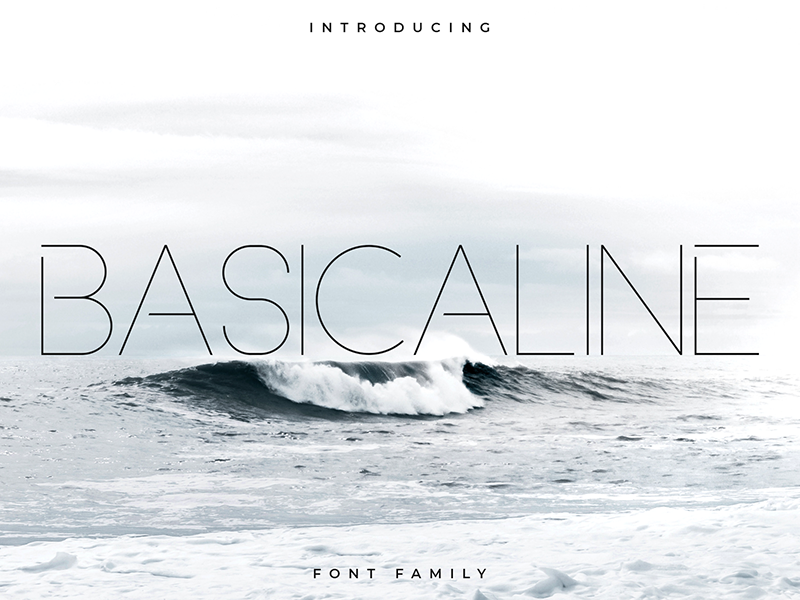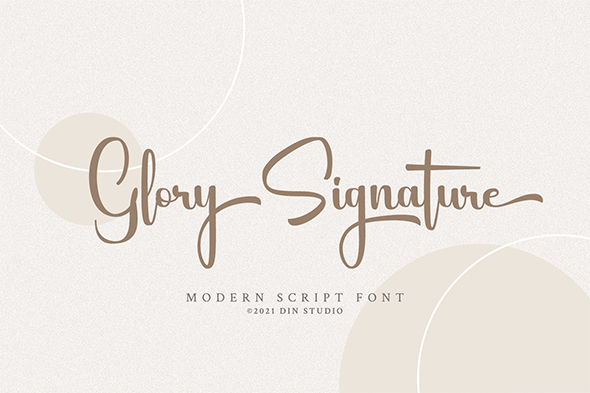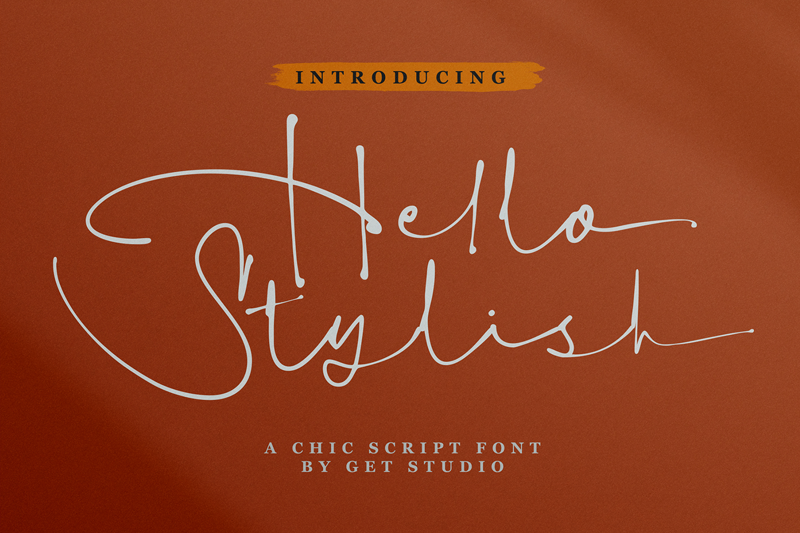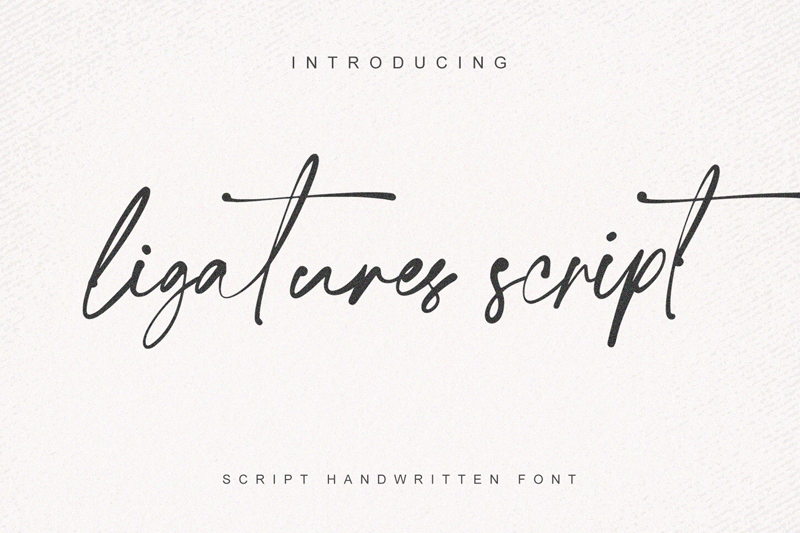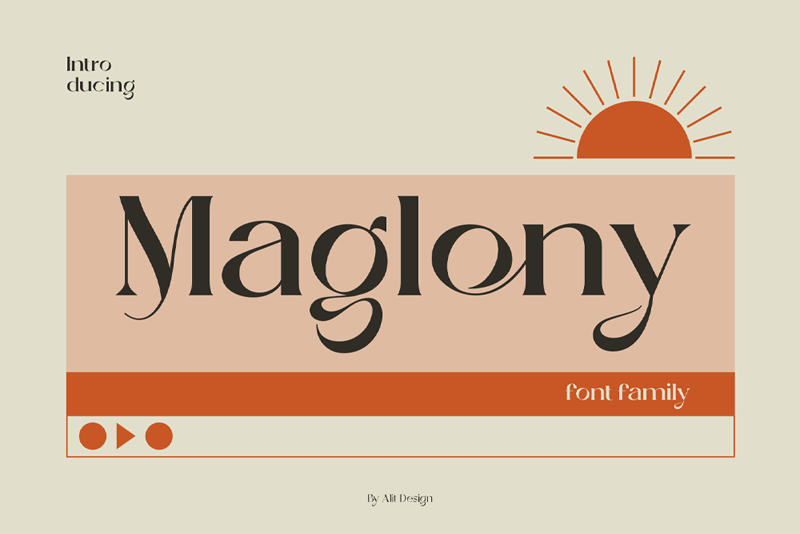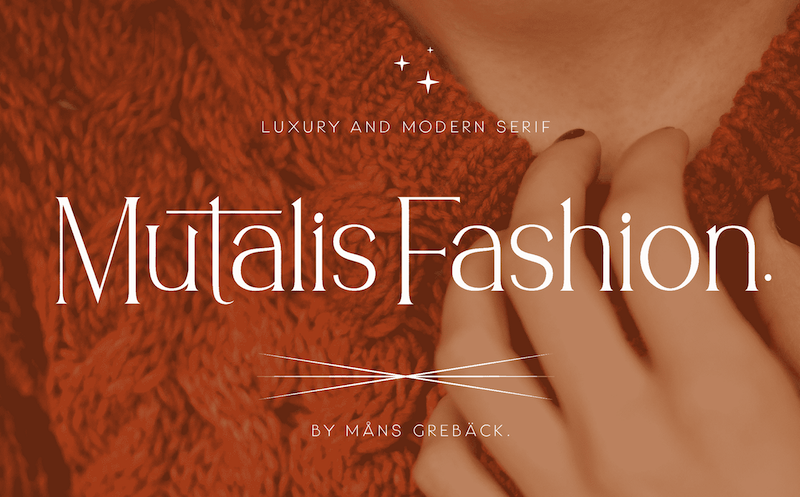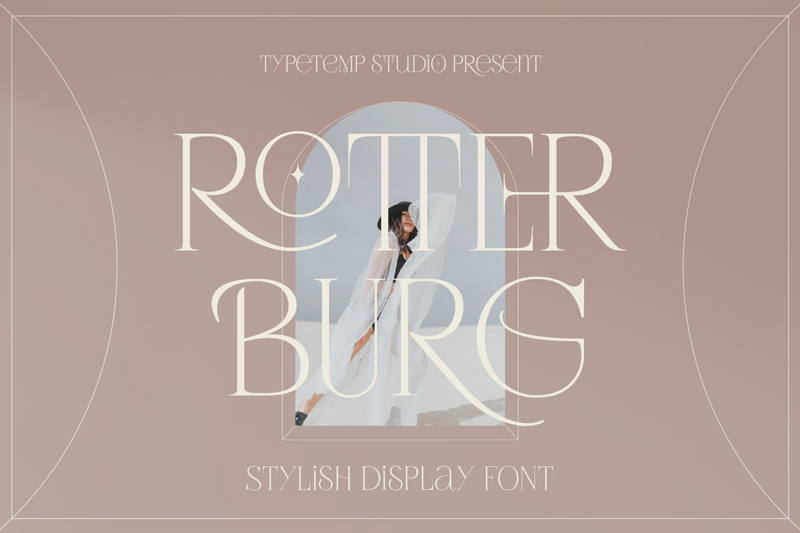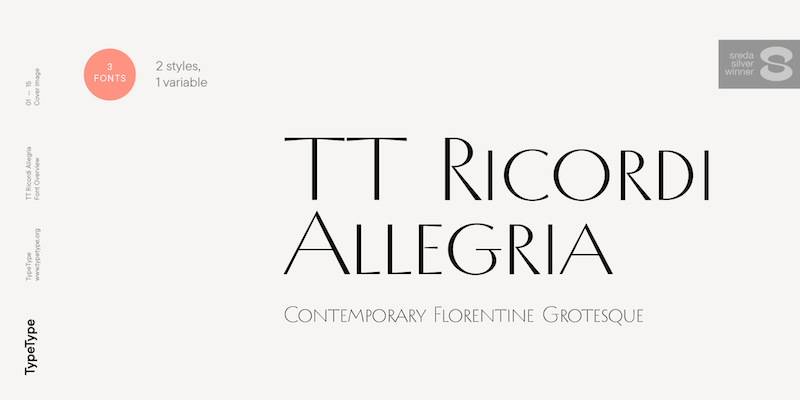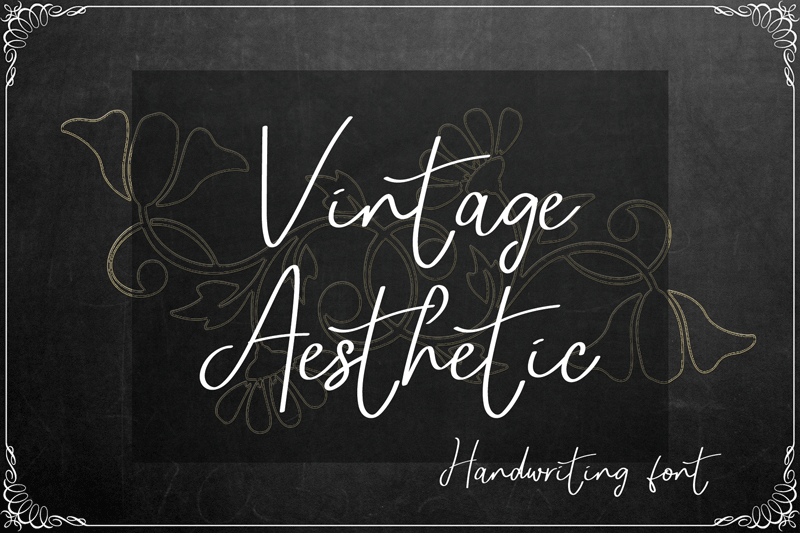
Nothing makes a designer happier than finding a font-style aesthetic to fill their design. You may realize that every element in a template design has a big impact on the result of the design itself. The same goes for finding the right font for your design requirements.
Let’s look at free font recommendations with many styles with various nuances. You may find the required font here!
The first font style aesthetic recommendation came from Basicaline, which is a serif font type with minimal styling. This makes Basicaline looks neat and also gives a formal image. Every constant thin line in this font gives a professional but stylish impression.
If you are a fan of basic script fonts with thin lines, Rotterburg can be your next beautiful font collection. In contrast to basic fonts in general, which don’t have many stylistic looks, Rotterburg is very fashionable. Each alphabet has a unique style gives it an elite and aesthetic impression.
You might think that most typeface fonts don’t have significant stylistic differences. But seeing this font from TT Ricordi Allegria you will think differently.
It is a contemporary font style aesthetic. At first glance, it looks like a basic font, but many small details make it unique and classy. In addition, you can get 2 different styles of this font which are beneficial for your design.
Typical handwriting fonts like Vintage Aesthetic are perfect for applying to designs requiring a font style name aesthetic.
Apart from the characteristics of handwriting fonts which have beautiful curves and are not too consistent, this font type is often used to write name initials. Vintage Aesthetic is a handwriting font that is also often found in romantic-themed templates.
Next, the font style aesthetic comes from Mutalish Fashion. It is a serif font that takes inspiration from the modern style of typical fashion brands. If you often read magazines, blogs, or clothing line brand names, you will find many basic fonts that have been created to make them more luxurious.
Without reducing the value of art, you can also apply this font from Mutalish Fashion to more minimalist and formal designs.
Tired of font designs that are too basic? Then this is what you are waiting for. Belgan Aesthetic is here for lovers of aesthetic decoration fonts.
As one of the serif typeface fonts, Belgan Aesthetic has a design that is full of decoration, stylish but not exaggerated. So that it still prioritizes an elegant and luxurious appearance.
Another unique font that you can get is Maglony. When you’re starting to get frustrated about what fonts you should use for your designs, you should try Maglony. This font style aesthetic has a very specific and unique font style. You can apply it to displays, titles, subtitles, and even as initials on your business cards.
Some people define aesthetic fonts as those with curves, unique styles, and are not rigid. So, if you are one of them, the font that is suitable for you is a type of handwriting font, calligraphy, or script.
This Hello Stylish font is a stylish script type with a light appearance. Therefore, you can use this font as a display in a minimalist design.
Still discussing stylish script fonts, the next recommendation comes from Glory Signature. Currently, you can use Glory Signature as a display or title with a romantic and elegant theme. As a modern font style aesthetic, Glory Signature is also suitable to fill in fun or minimalist designs.
Switch to the next font, Ligatures Script is a typical handwriting font with a firm style. You may often find fonts like Ligatures Script in designs with elegant and romantic nuances, such as wedding invitation templates and greeting cards. Therefore, this font will be a great choice whenever you need an aesthetic option!